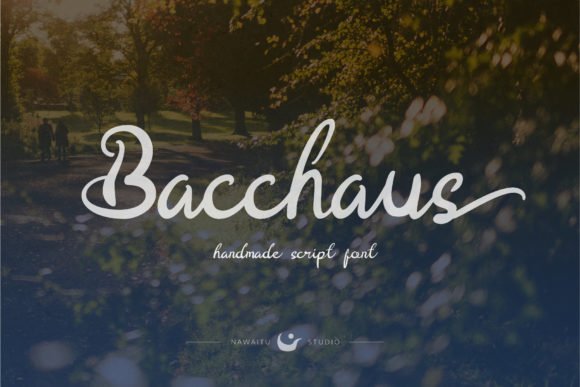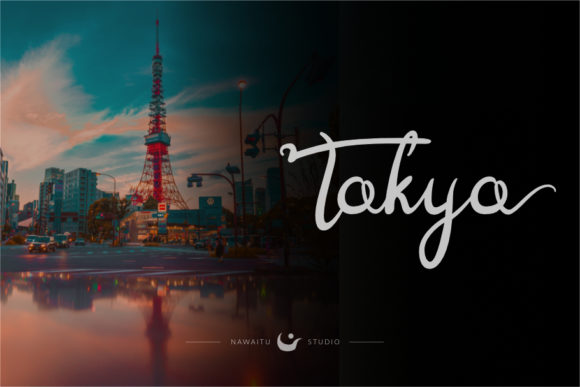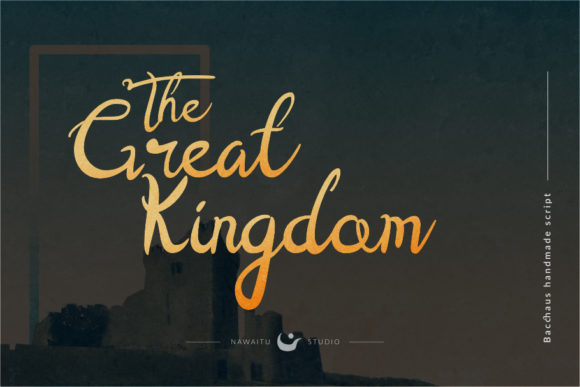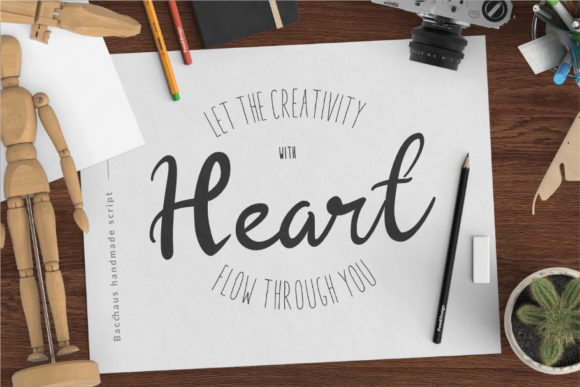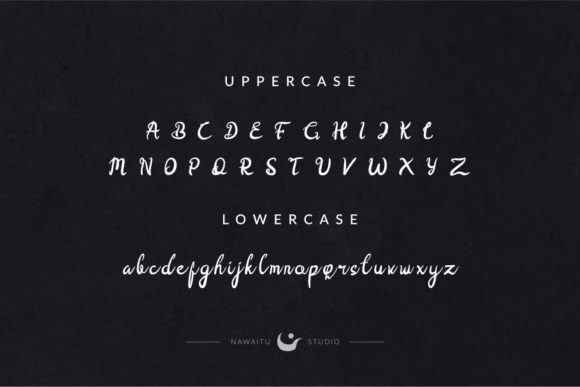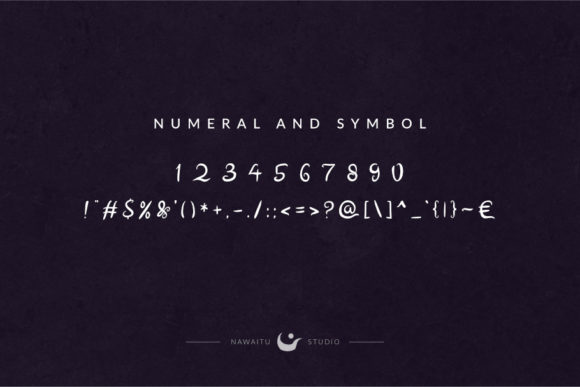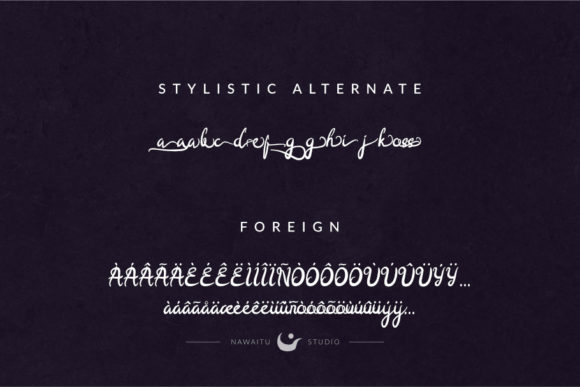
The Perfect Script Font for Adding Personality to Your Designs
Remember the moment when you stumble upon a font that perfectly captures the essence of your creative vision? For many designers, this moment is a game-changer. It’s the moment when your ideas come alive, and your designs start to tell a story. And for those who have been on the hunt for the perfect script font, we’re excited to introduce you to the Bacchaus Script Font.
This elegant script font boasts an authentic handwritten touch that adds a personal charm to every design. Whether you’re working on branding projects, homeware designs, or product packaging, the Bacchaus Script Font is the perfect choice. Its versatility and sophistication make it a valuable asset for designers who want to elevate their designs and leave a lasting impression.
Bacchaus Script Font Key Features
- Unique Characteristics: Elegant and cursive script font, ideal for creative and artistic designs
- Language Support: Supports multiple languages, including Latin-based alphabets and Cyrillic
Bacchaus Script Font Review
I’ve had the chance to work with the Bacchaus Script Font, and I must say, it’s a beautiful script font. Here are some things that really stood out to me:
- ✨ Elegant and refined look: The Bacchaus Script Font has a very sophisticated and elegant look that’s perfect for high-end branding and marketing materials.
- ✨ Versatile: This font is great for both digital and print applications, making it a great addition to any designer’s toolkit.
- ✨ Unique flair: The Bacchaus Script Font has a unique flair that sets it apart from other script fonts, making it a great choice for designers looking to add some personality to their projects.
However, like any font, the Bacchaus Script Font has its limitations:
- ⚠️ Limited font weights: The Bacchaus Script Font only comes in a limited number of font weights, which can make it difficult to achieve certain design effects.
- ⚠️ Not suitable for body text: While the Bacchaus Script Font is great for headings and titles, it’s not the best choice for body text due to its elaborate design.
Overall, the Bacchaus Script Font is a great addition to any designer’s toolkit, but it’s not without its limitations. If you’re looking for a beautiful script font for high-end branding and marketing materials, the Bacchaus Script Font is definitely worth considering.
Bacchaus Script Font Practical Application Guide
Tips for Getting the Most Out of Bacchaus Script Font
Use Bacchaus Script Font for titles, headings, and other emphasis points. Pair it with a clean sans-serif font for body text. Experiment with different font sizes and colors to create visual hierarchy.
Bacchaus Script Font is ideal for wedding invitations, greeting cards, and other creative projects where a elegant, handwritten feel is desired. Use it to add a touch of sophistication and personality to your designs.
Alternatives to Bacchaus Script Font for Designers
Great Vibes is a beautiful, elegant script font that is perfect for creating a sophisticated and luxurious feel in your designs. It is highly versatile and can be used for a wide range of applications, from wedding invitations to branding and packaging.
Compared to Bacchaus Script Font, Great Vibes has a more refined and polished look, making it ideal for high-end designs. It also has a wider range of ligatures and alternates, giving designers more flexibility and options for customizing their designs.
Carolyna Pro is a modern script font that is perfect for designers who want to create a unique and eye-catching look. It has a bold and playful feel, making it ideal for applications such as branding, packaging, and advertising.
Compared to Bacchaus Script Font, Carolyna Pro has a more dynamic and energetic feel, making it perfect for designers who want to create a bold and attention-grabbing look. However, it may not be suitable for designs that require a more subtle or elegant look.
Q: What is the recommended font size for using Bacchaus Script?
The recommended font size for using Bacchaus Script is between 18pt and 48pt. This allows the font to be easily readable while still maintaining its elegant, cursive appearance. However, the optimal font size will depend on the specific design application and the desired level of readability.